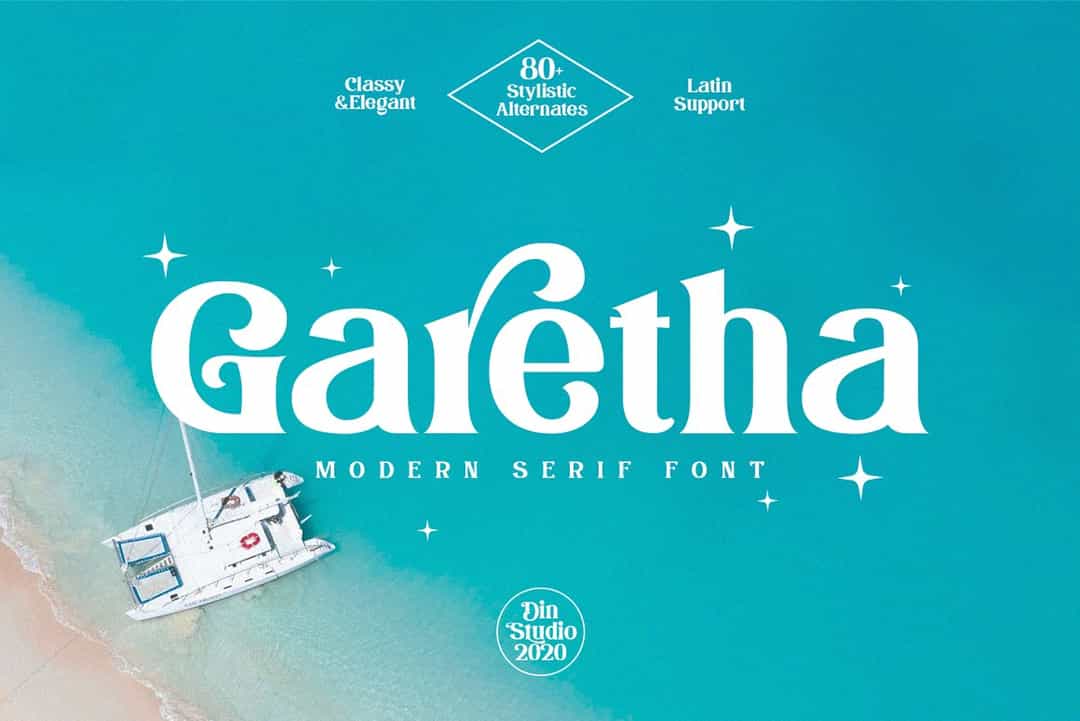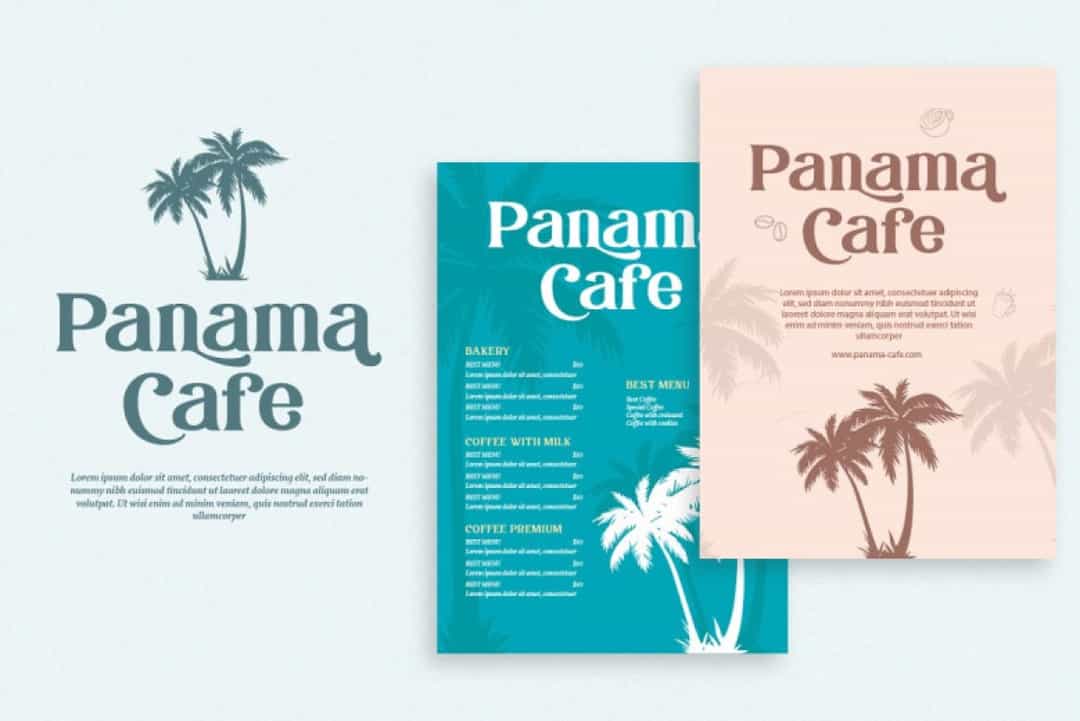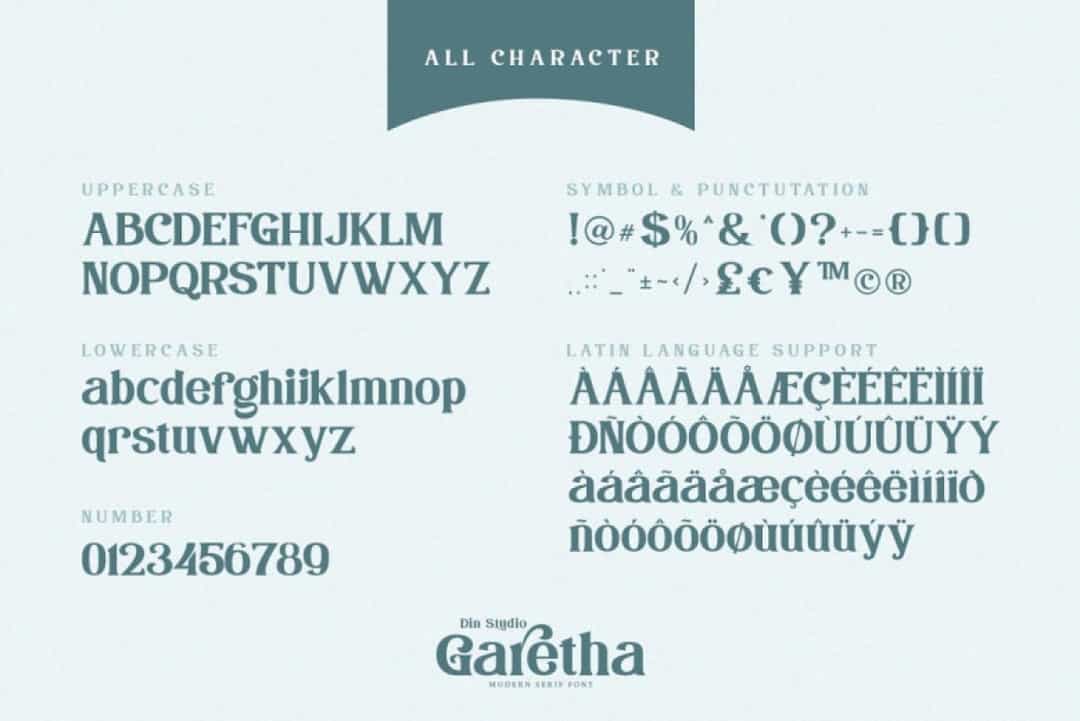
Garetha is a modern serif font ideal for professional or corporate branding purposes. Suitable uses for this font include wedding invites and quotes; its distinctive letters boast stunning designs.